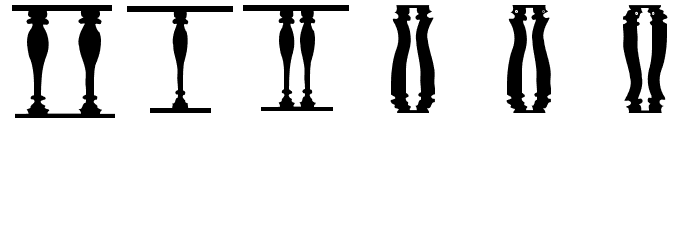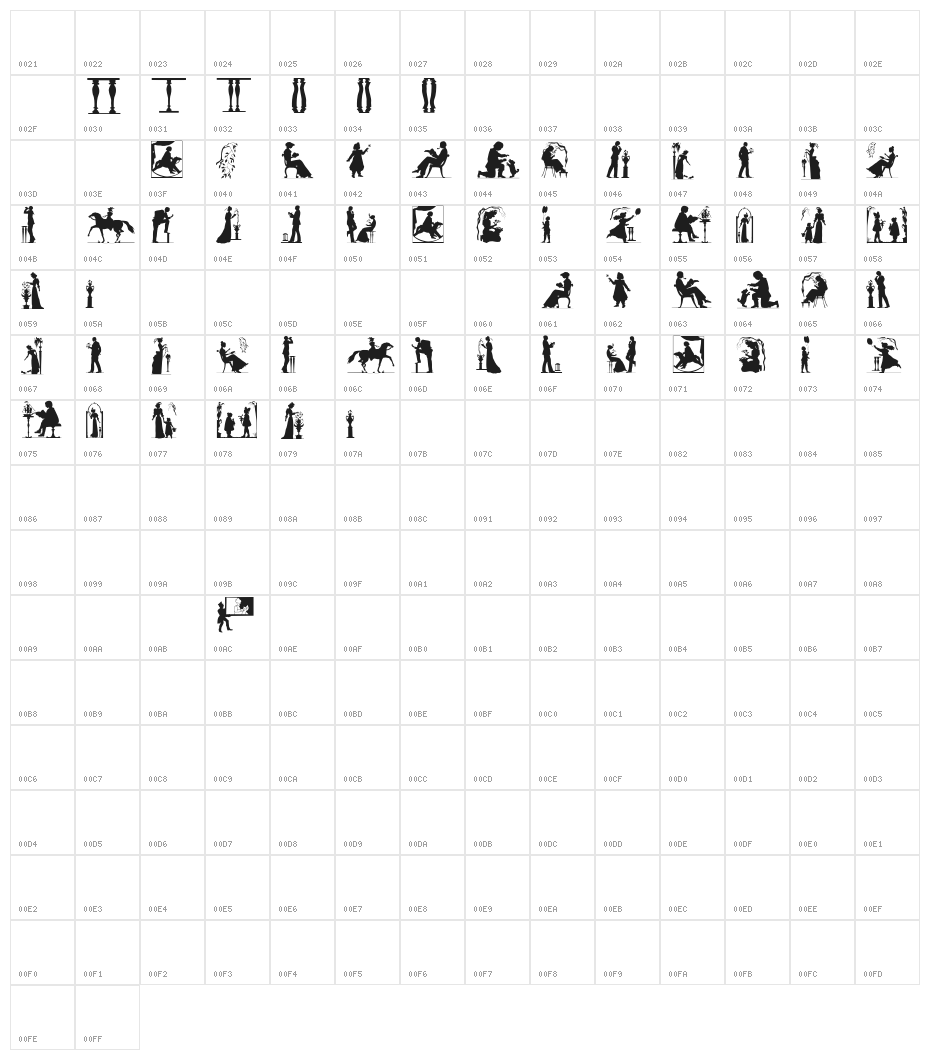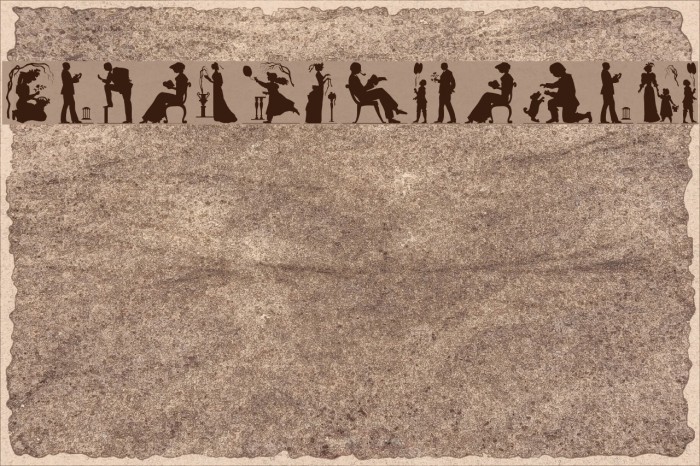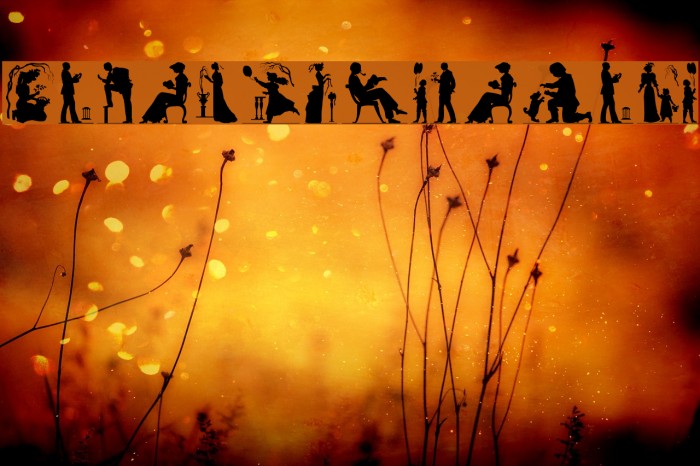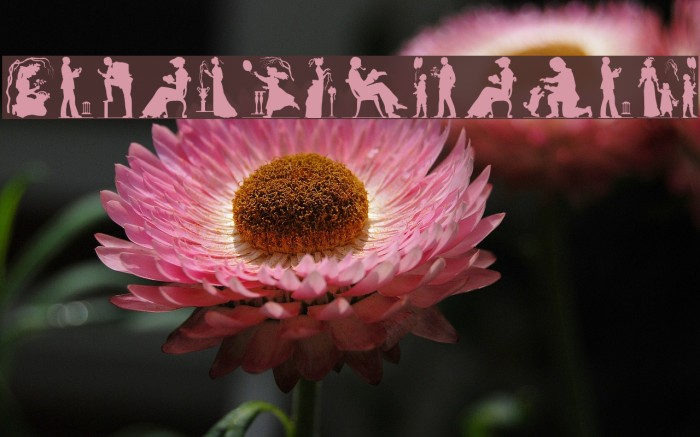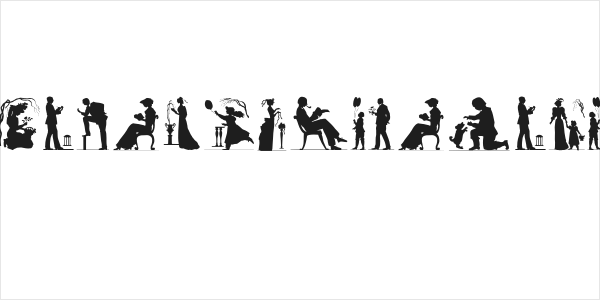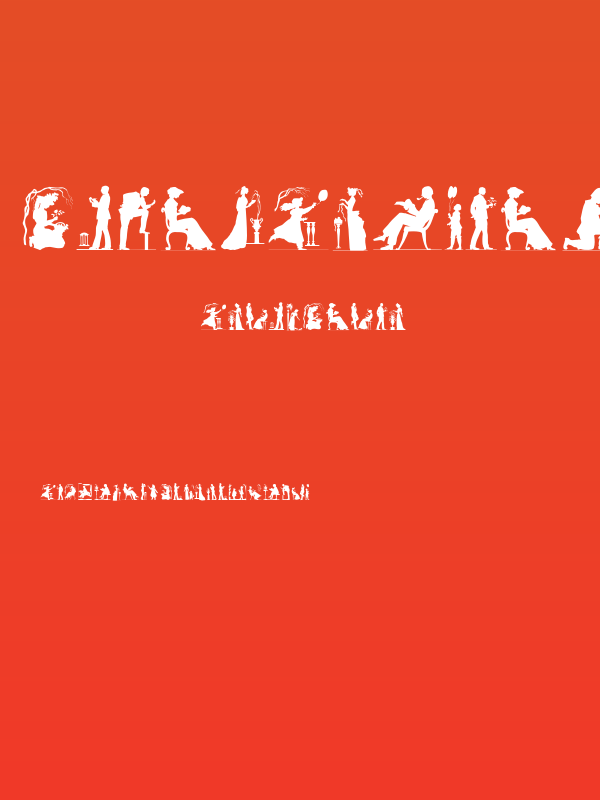
RomanticShadows Font
RomanticShadows Description
This is not a valid font. The image contains a series of silhouette illustrations depicting romantic and whimsical scenes. Each character is represented by a unique silhouette, showcasing various activities and interactions between figures. The style is decorative and artistic, focusing on storytelling through visual imagery rather than typographic elements.
Use CaseArtwork, Visual storytelling, Event graphics
Proposed ProjectsThis style could be used for decorative artwork, storytelling visuals, or themed event graphics.